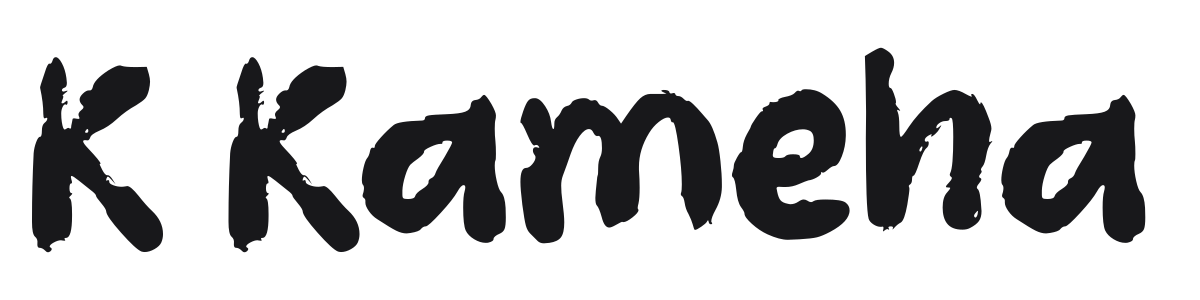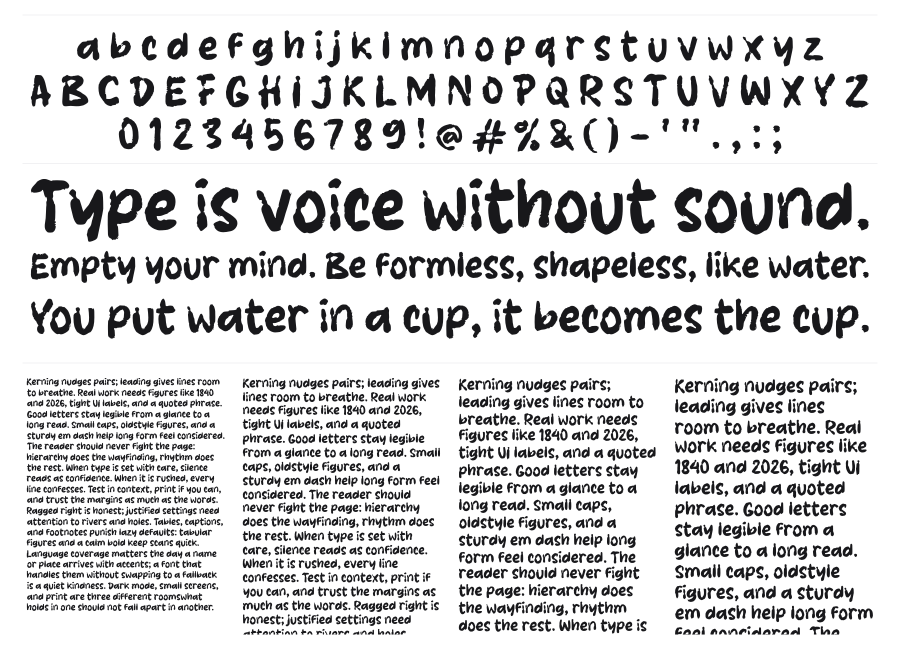
K Kameha
K Kameha is a heavy brush script with rough, ink-textured strokes that feel like a loaded brush moved fast across paper. The irregular outlines and casual, rounded forms give it an energetic, hand-made quality without feeling sloppy. It carries the spirit of comic lettering and street-art bold enough to own a poster.